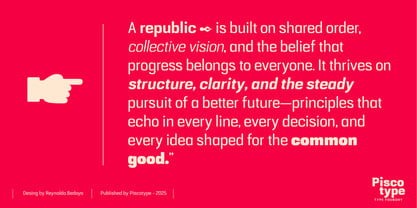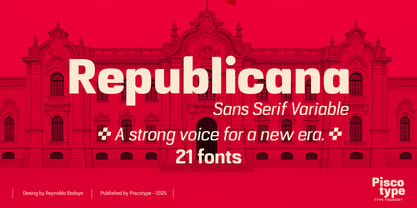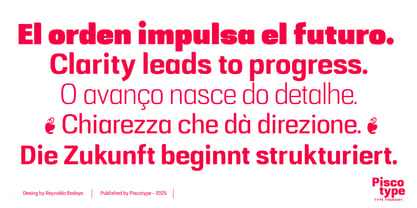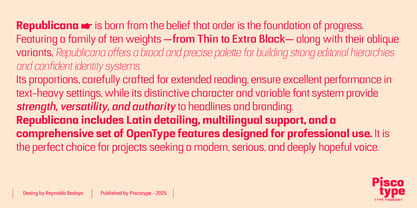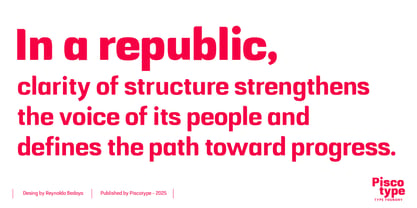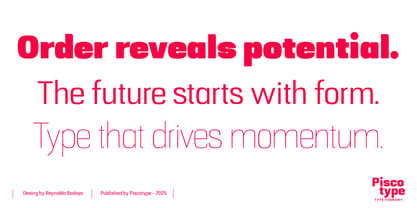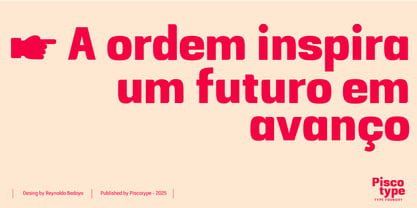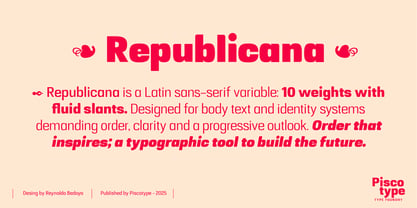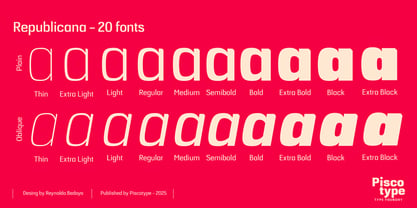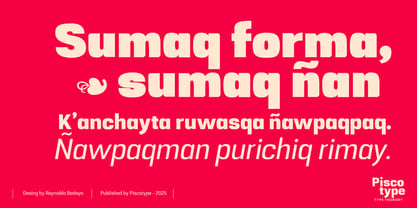
Republicana
von Piscotype
Die Schriftfamilie Republicana wurde von Reynaldo Bedoya entworfen und von Piscotype veröffentlicht. Republicana enthält 21 Stile und Familienpaketoptionen. Mehr über diese Familie
Republicana is born from the belief that order is the foundation of progress. Featuring a family of ten weights —from Thin to Extra Black— along with their oblique variants, Republicana offers a broad and precise palette for building strong editorial hierarchies and confident identity systems. Its proportions, carefully crafted for extended reading, ensure excellent performance in text-heavy settings, while its distinctive character and variable font system provide strength, versatility, and authority to headlines and branding. Republicana includes Latin detailing, multilingual support, and a comprehensive set of OpenType features designed for professional use. It is the perfect choice for projects seeking a modern, serious, and deeply hopeful voice.